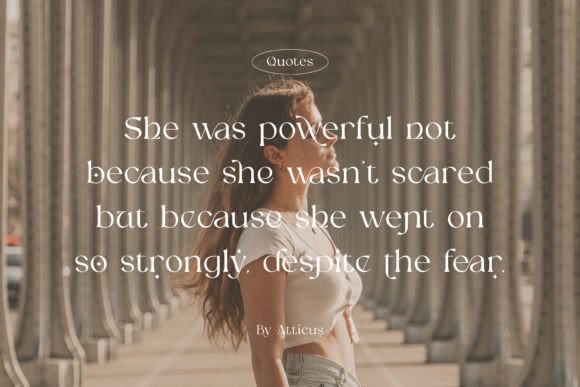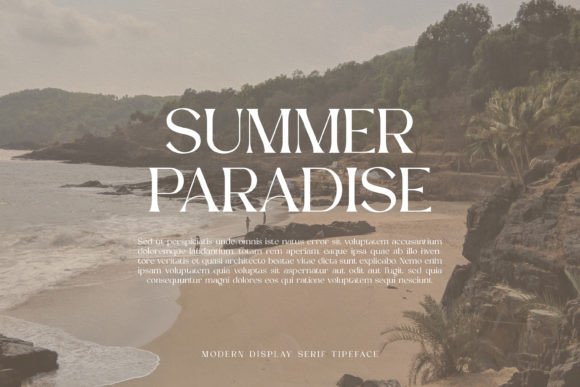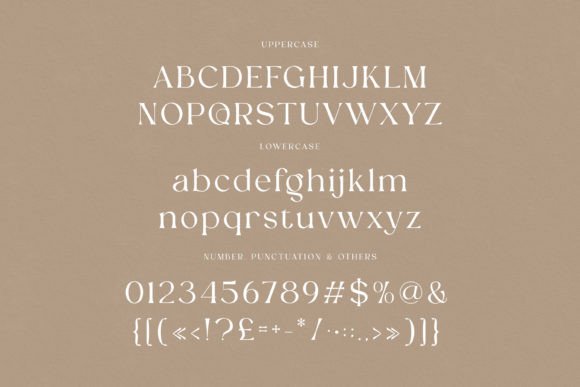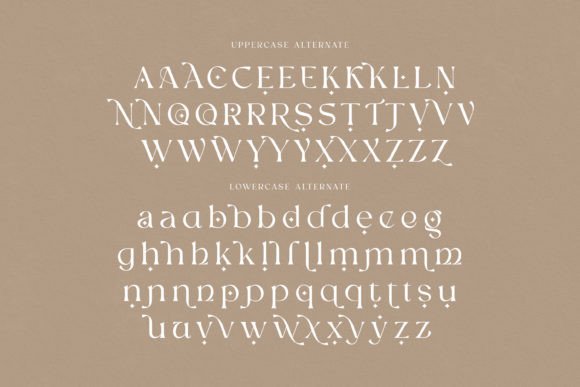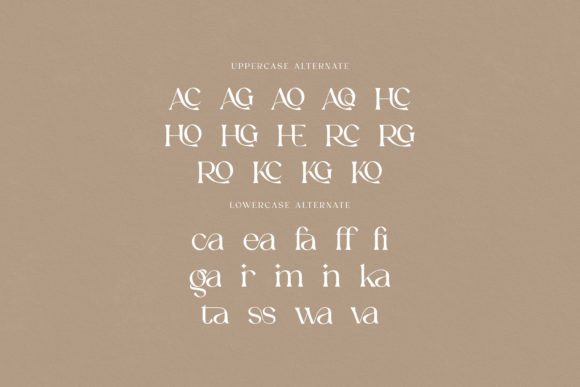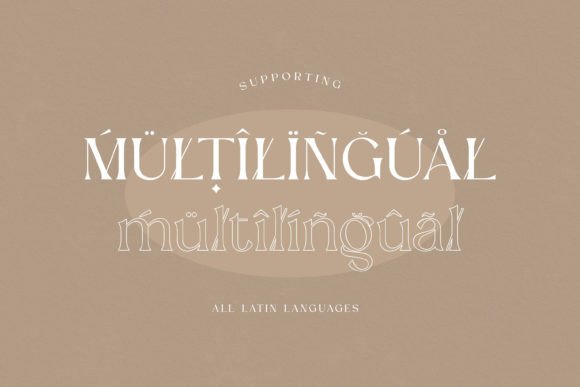
Introduction to Ligakare Font
Ligakare is a sleek and elegant serif font with a modern twist.
Its clean, minimalist lines are balanced by subtle curves and rounded serifs, creating a refined and sophisticated look The consistent stroke weight and precise letter spacing make it easy to read at any size, while the unique character shapes give it a distinctive and memorable appearance.
Key Features of Ligakare Font
Why Choose Ligakare Font?